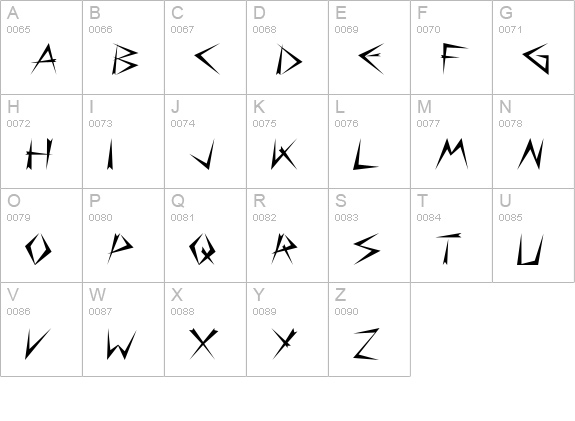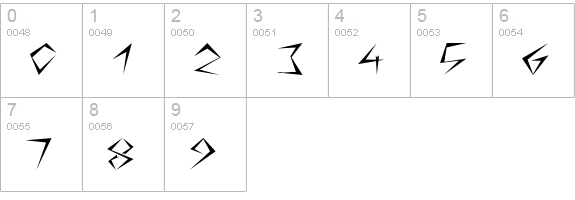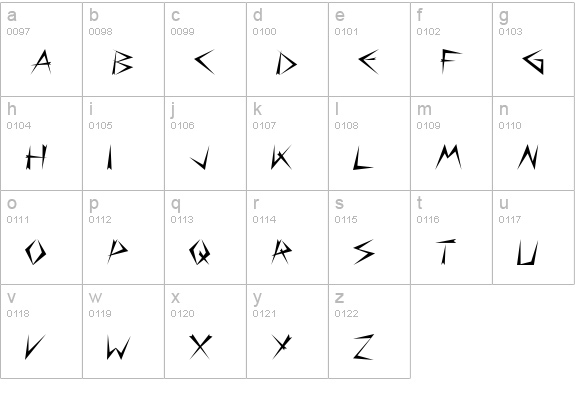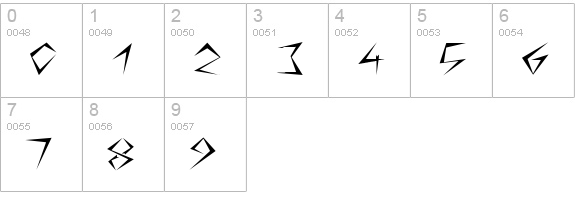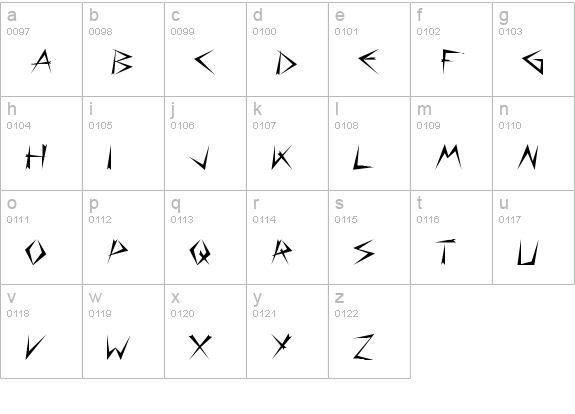
Bizarre Font Details
Bizarre font is a unique and eye-catching typeface that will make your designs stand out from the crowd. Its quirky and unconventional style is perfect for adding a touch of personality to any project. With its bold and striking appearance, Bizarre font is sure to grab the attention of your audience. Best of all, Bizarre font is completely free to download at FontsMarket.com. This means you can easily add this one-of-a-kind font to your collection without breaking the bank. Whether you're working on a poster, logo, or any other creative project, Bizarre font is the perfect choice to add a touch of whimsy and intrigue. Download it today and let your imagination run wild with this fantastic free font!